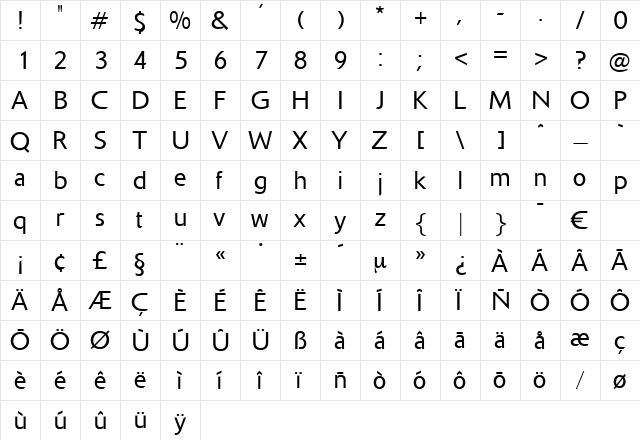
SoundLight Regular
Design Context for SoundLight Typeface
SoundLight is a composed and adaptable typeface that performs quietly and consistently across a wide range of design contexts. Its slender proportions lend an understated elegance to any composition.